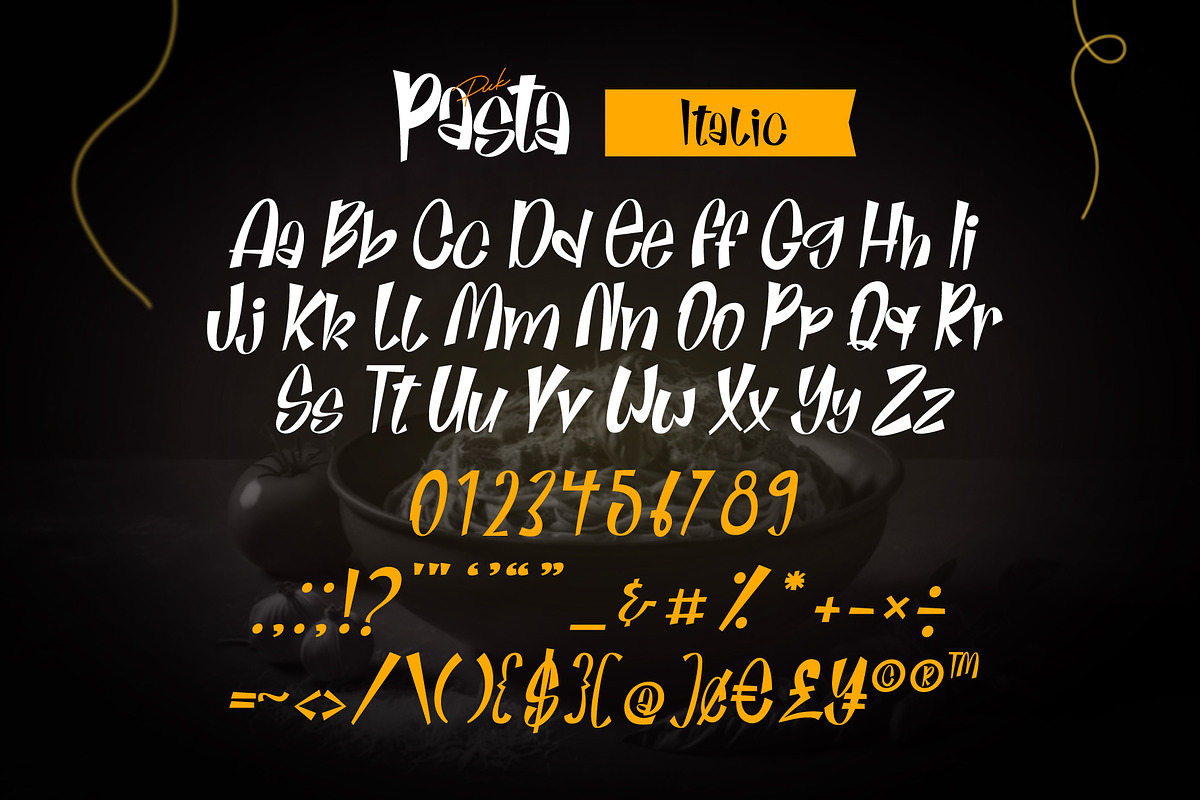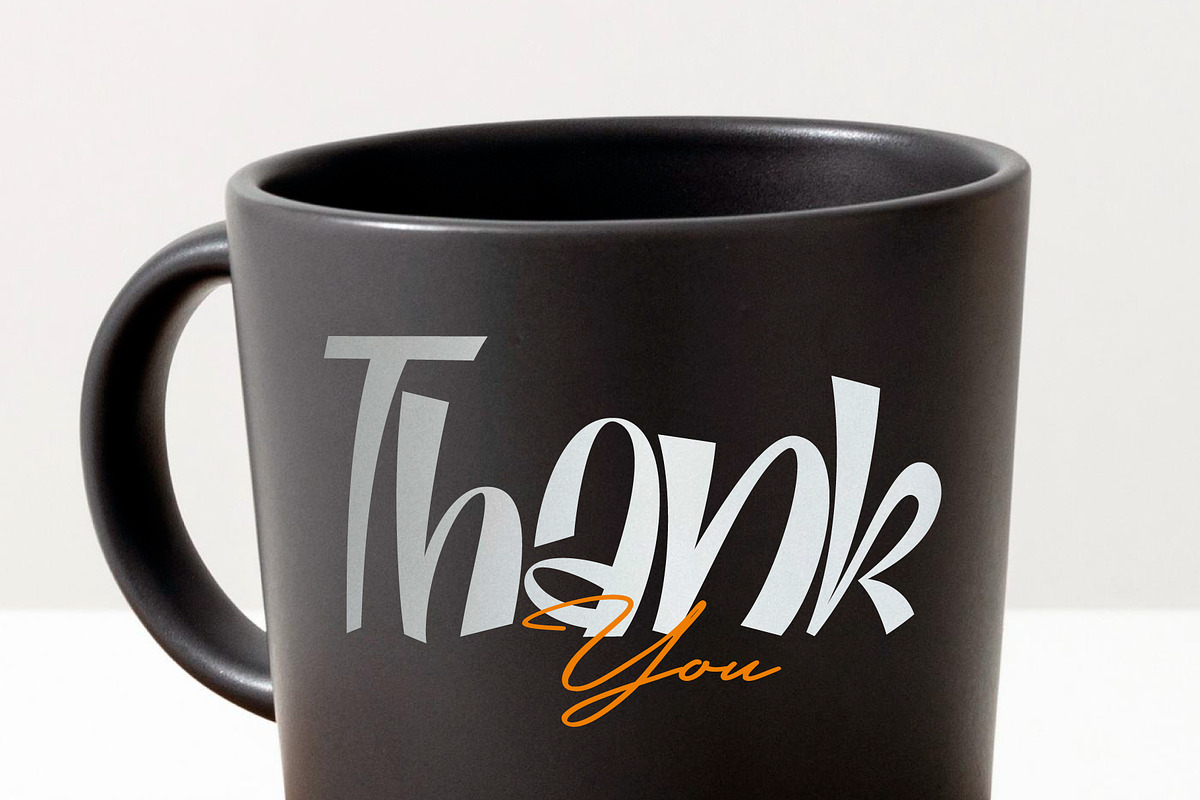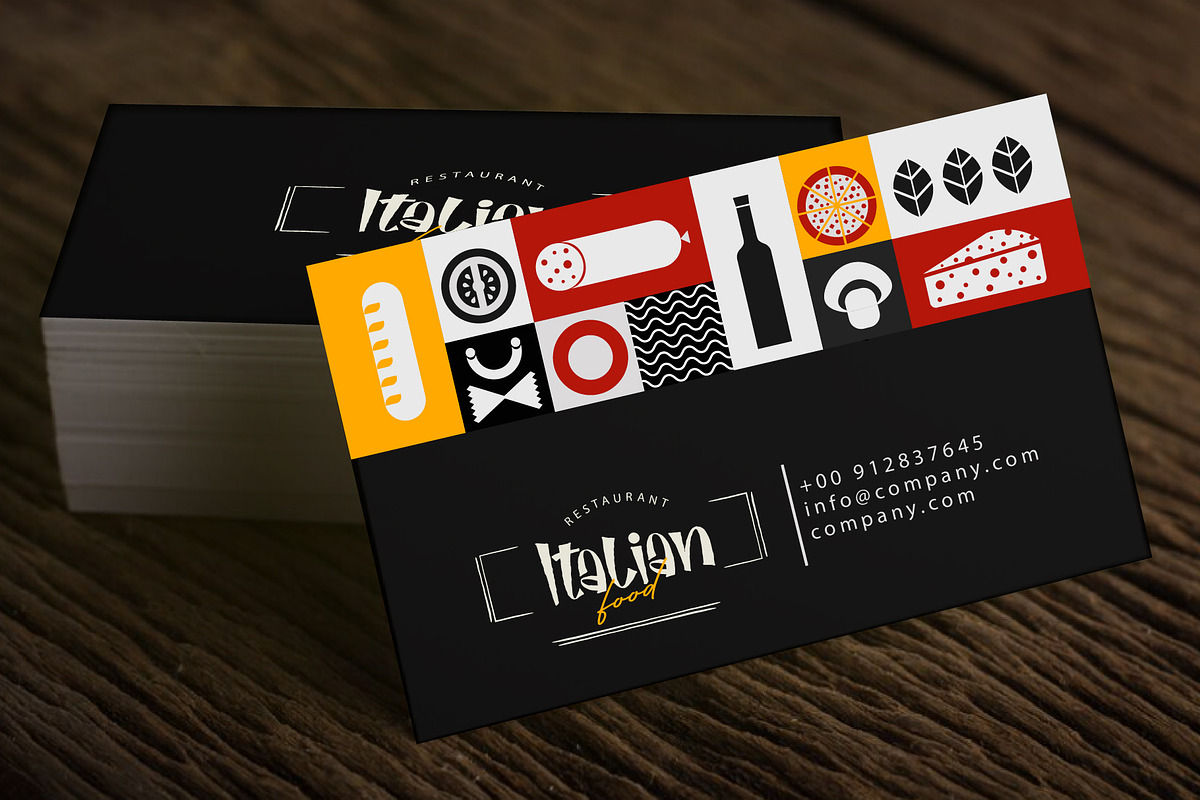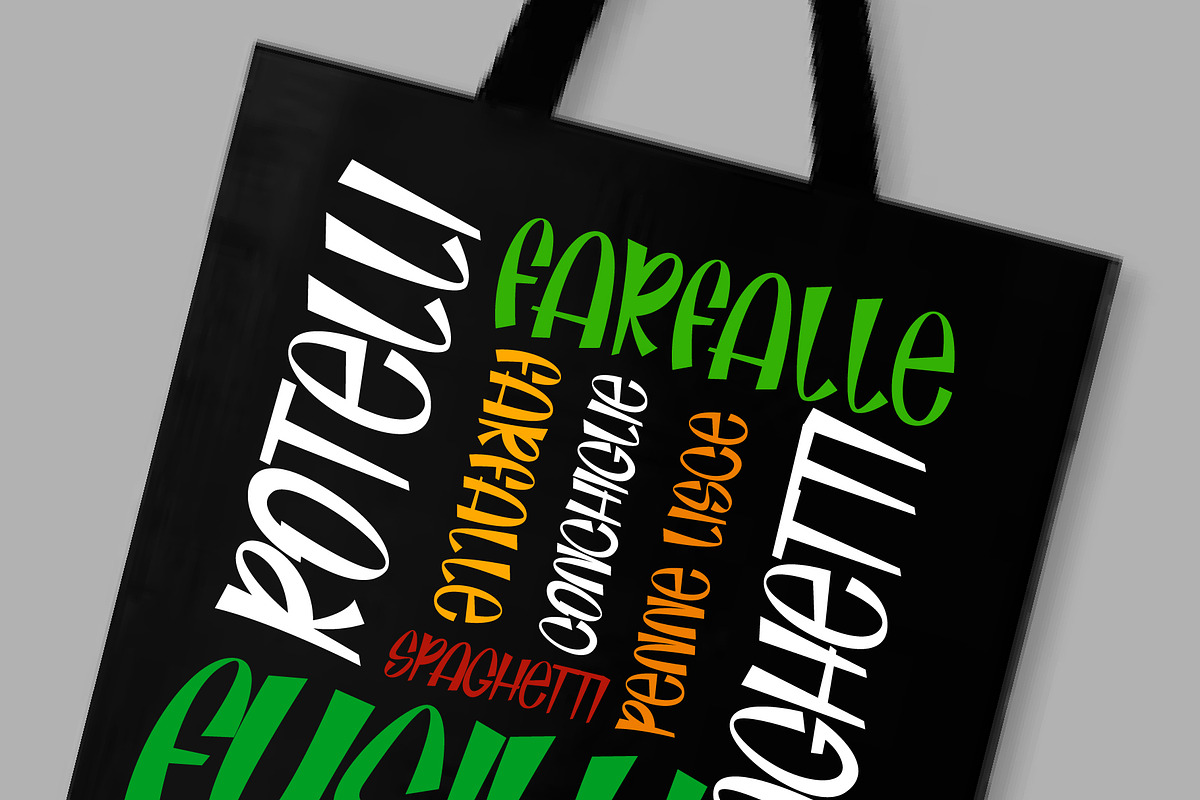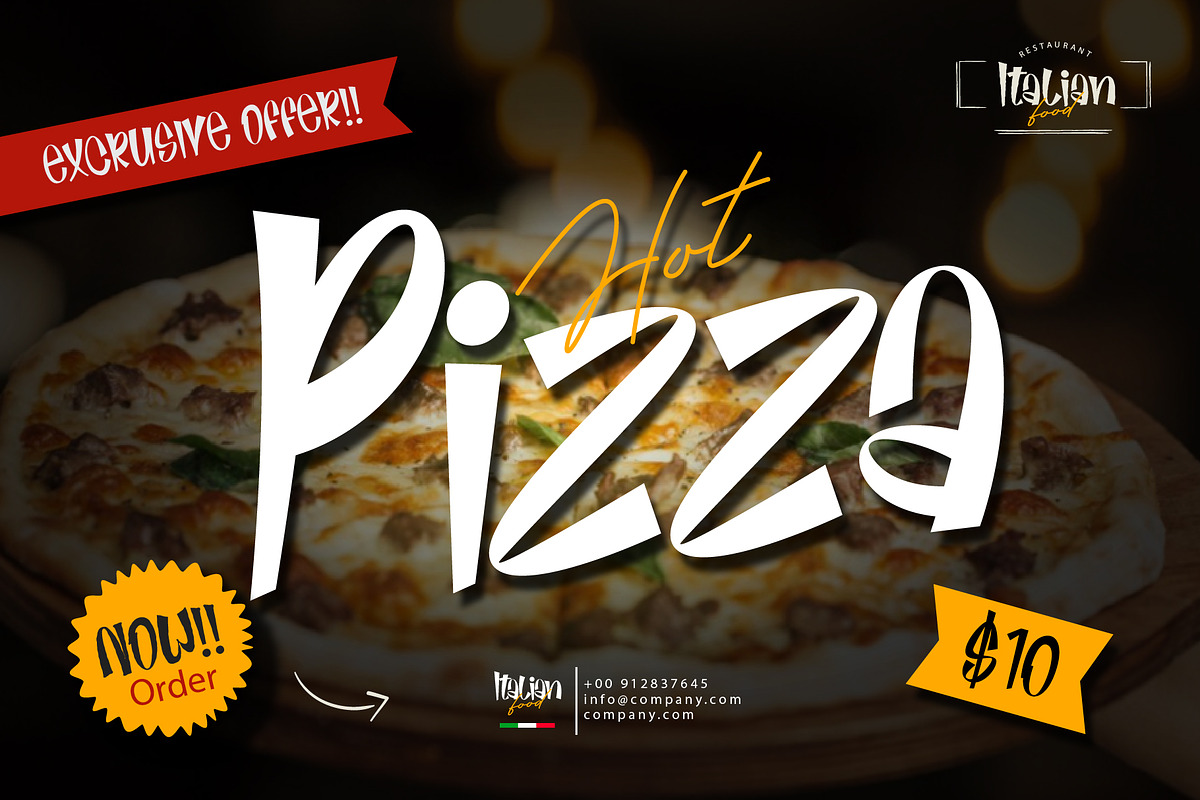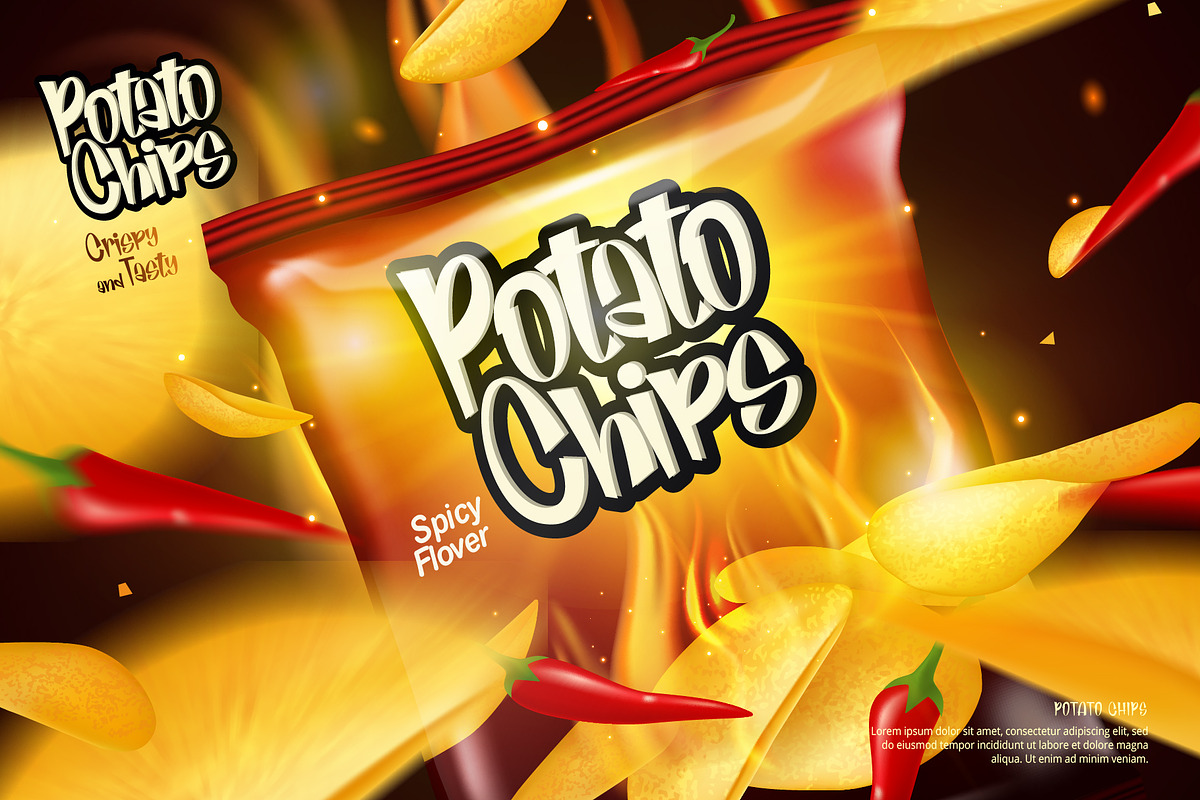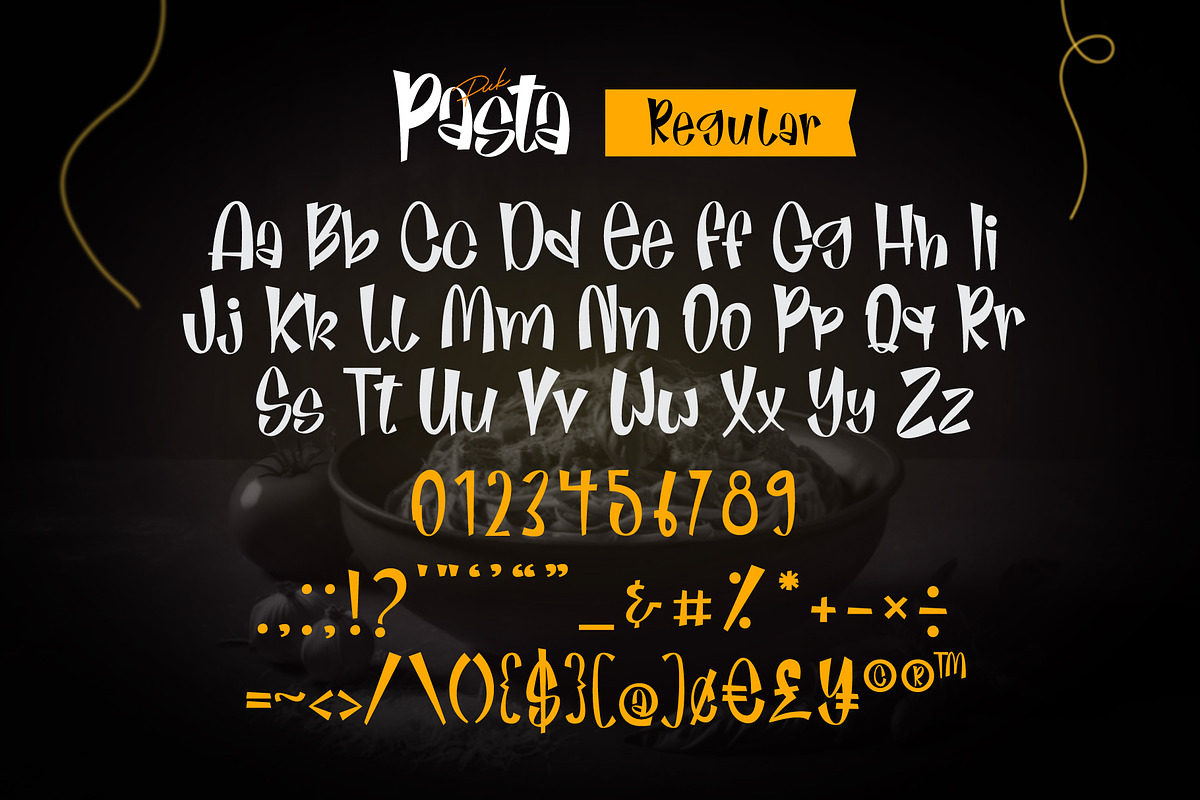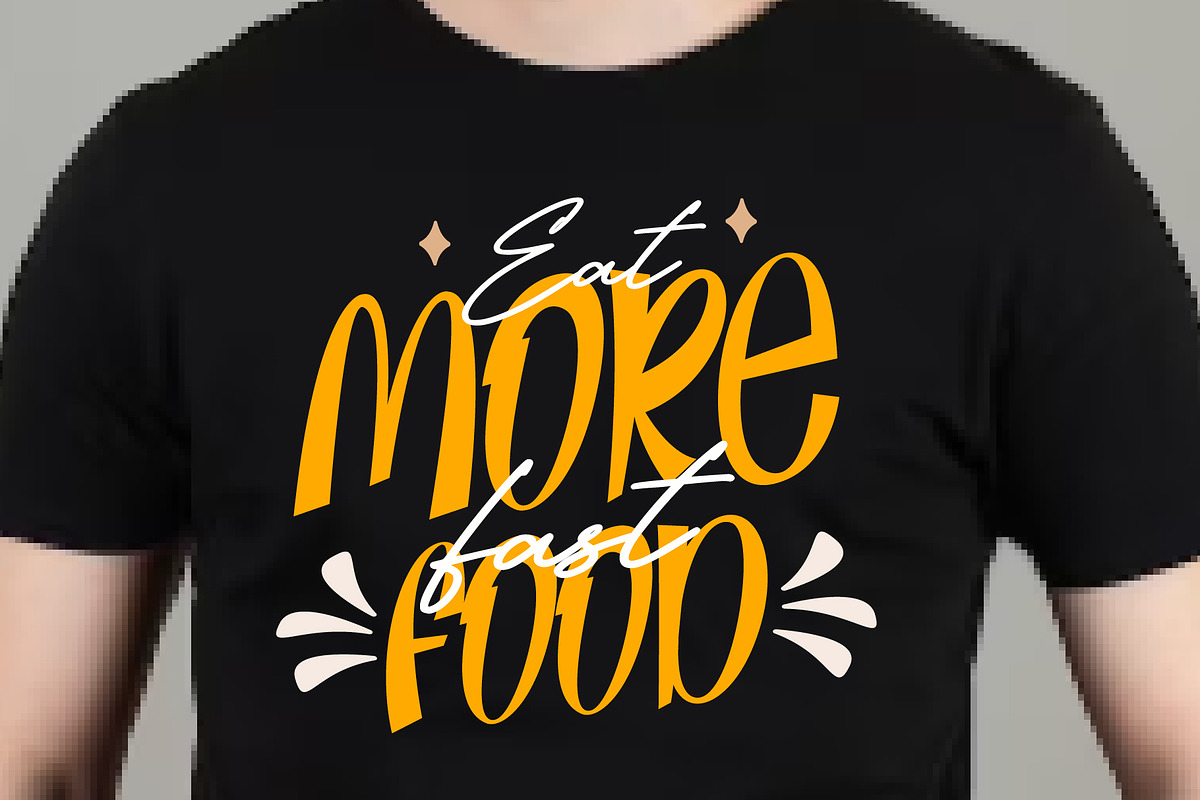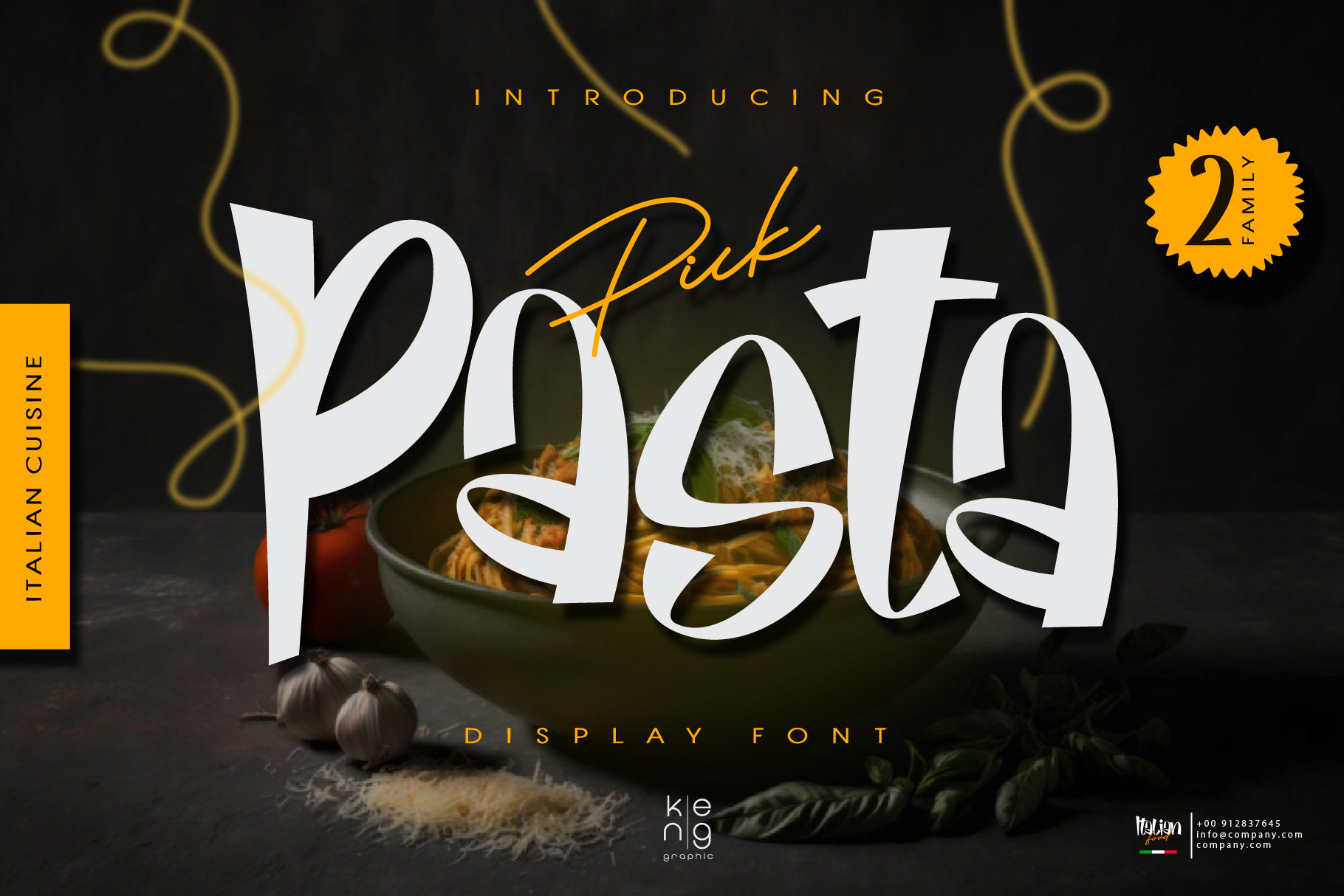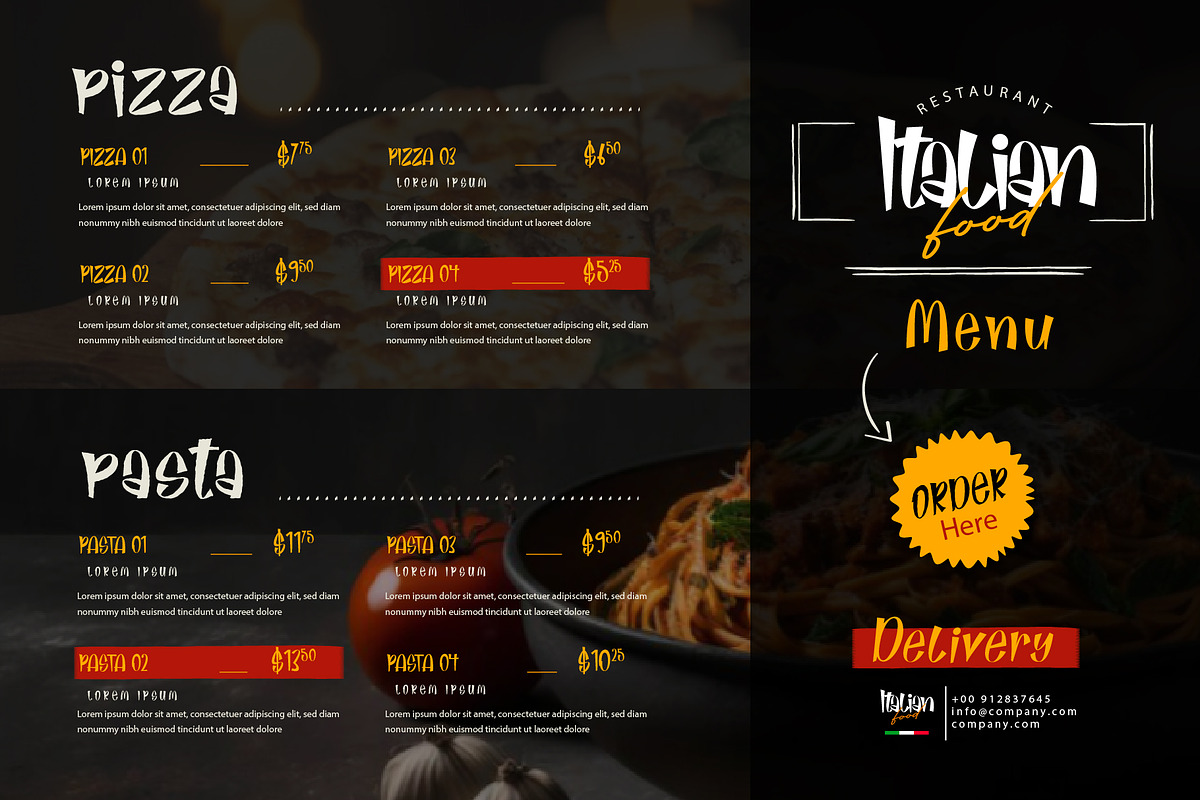
Pick Pasta Font
Pick Pasta is a Display font . Anything written in this font will be instantly recognizable and will grab attention. It will work great for comic book layouts, online games, cards, shirts, hats, bags, mugs, posters,food menus, movie titles, eye-catching social media posts. or anything that requires youth and courage.